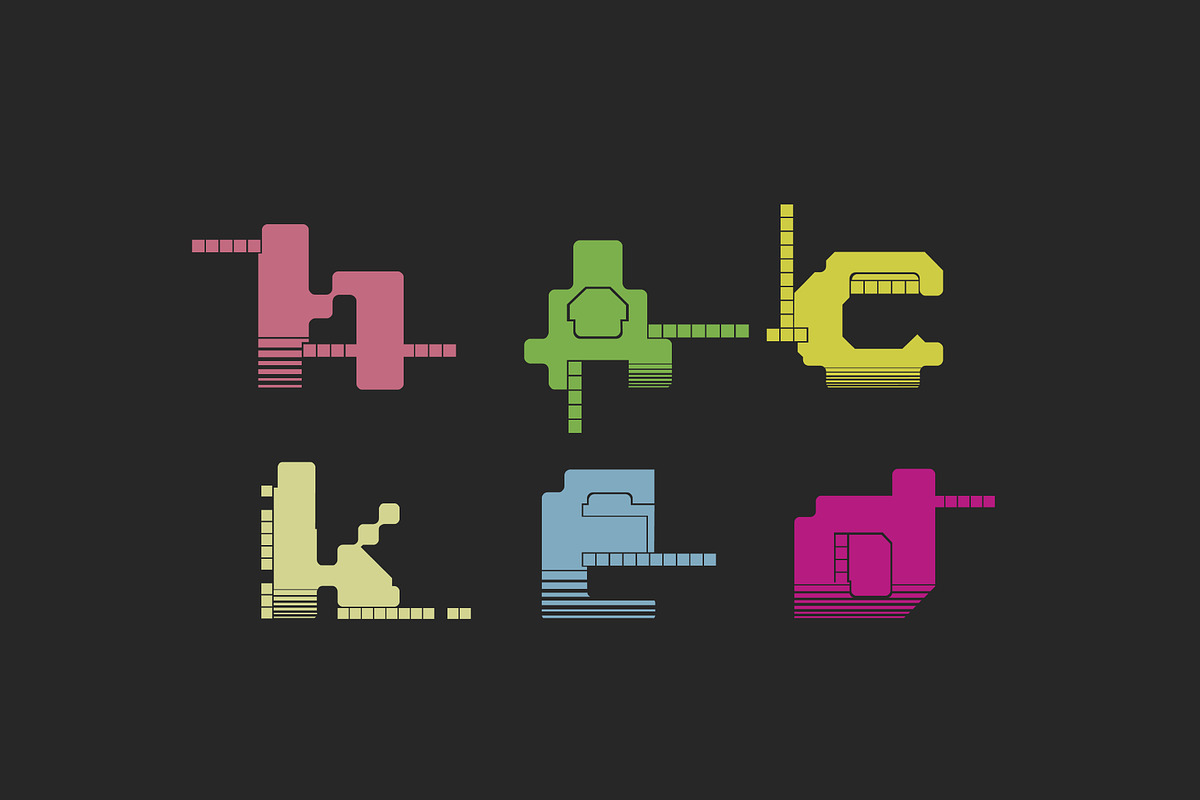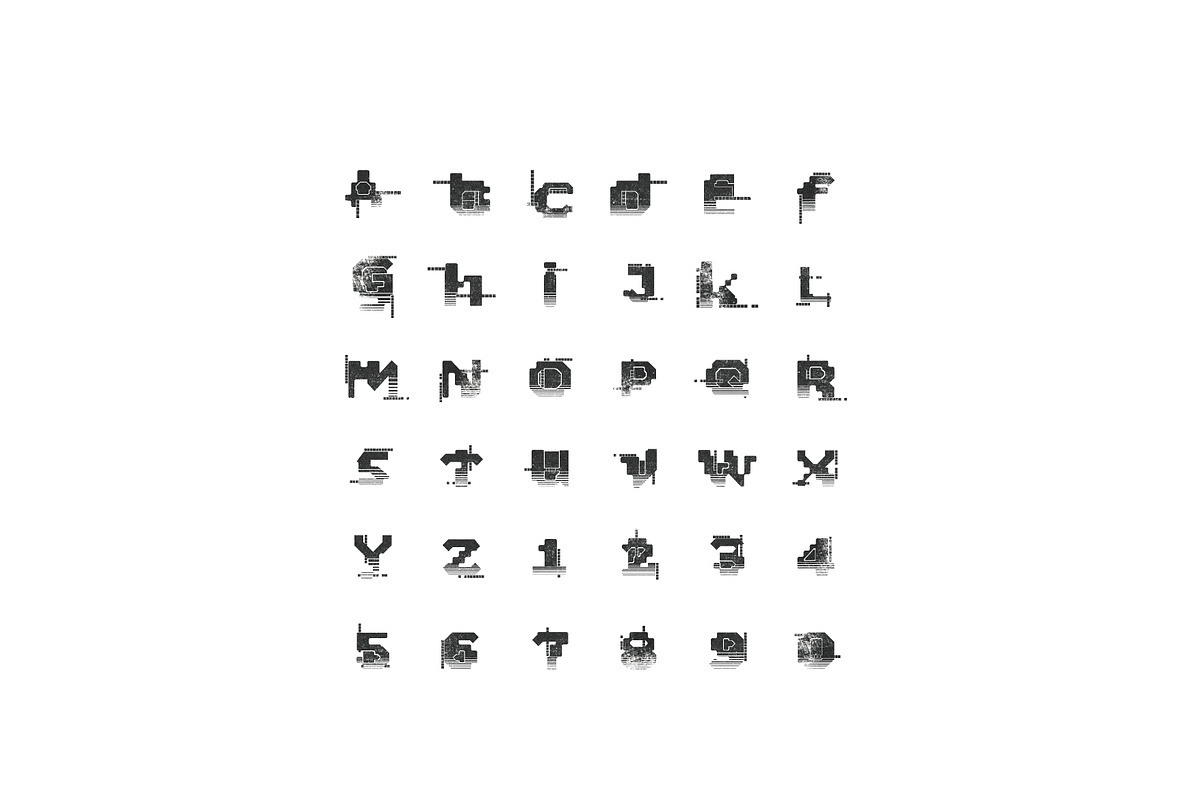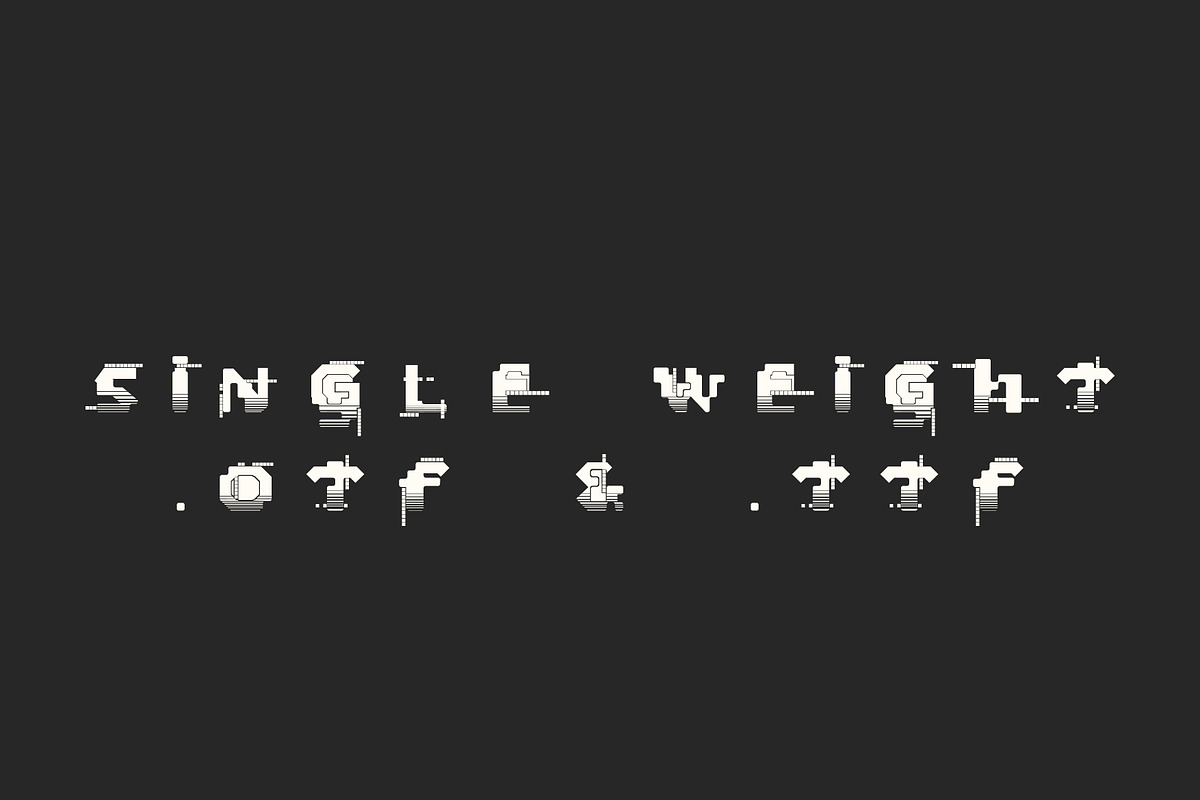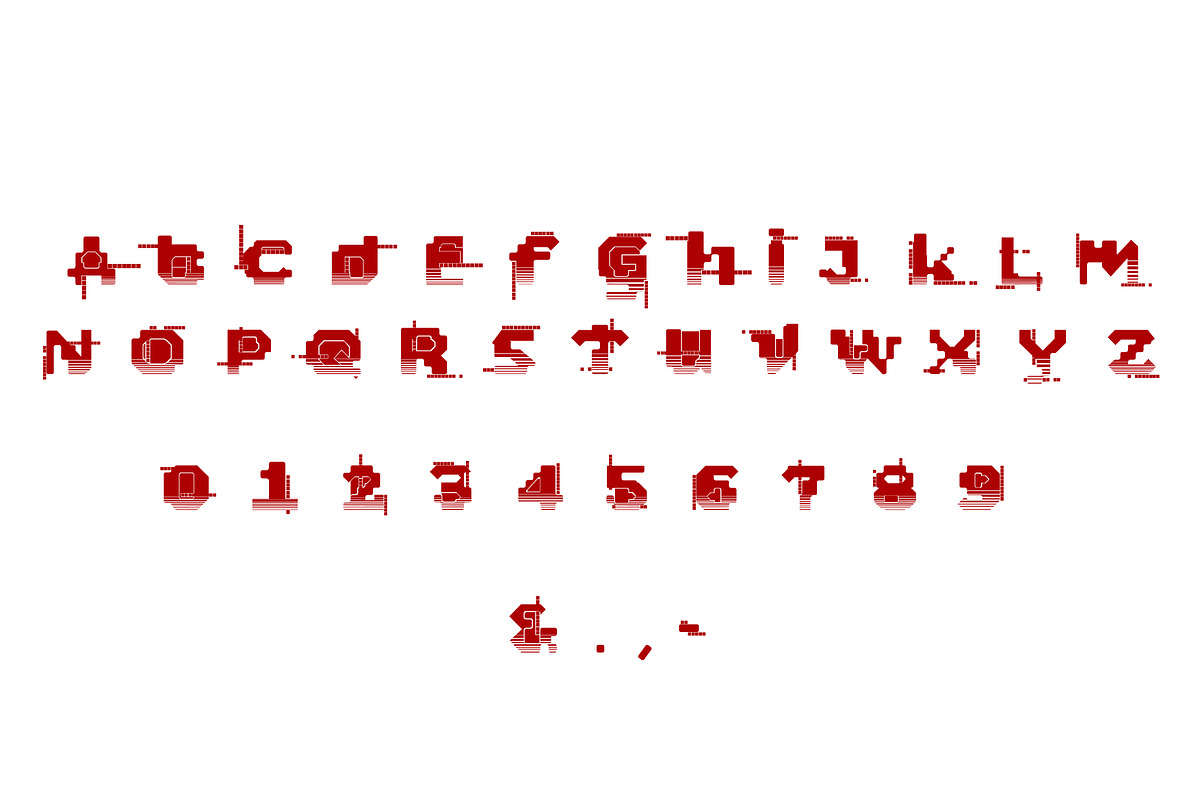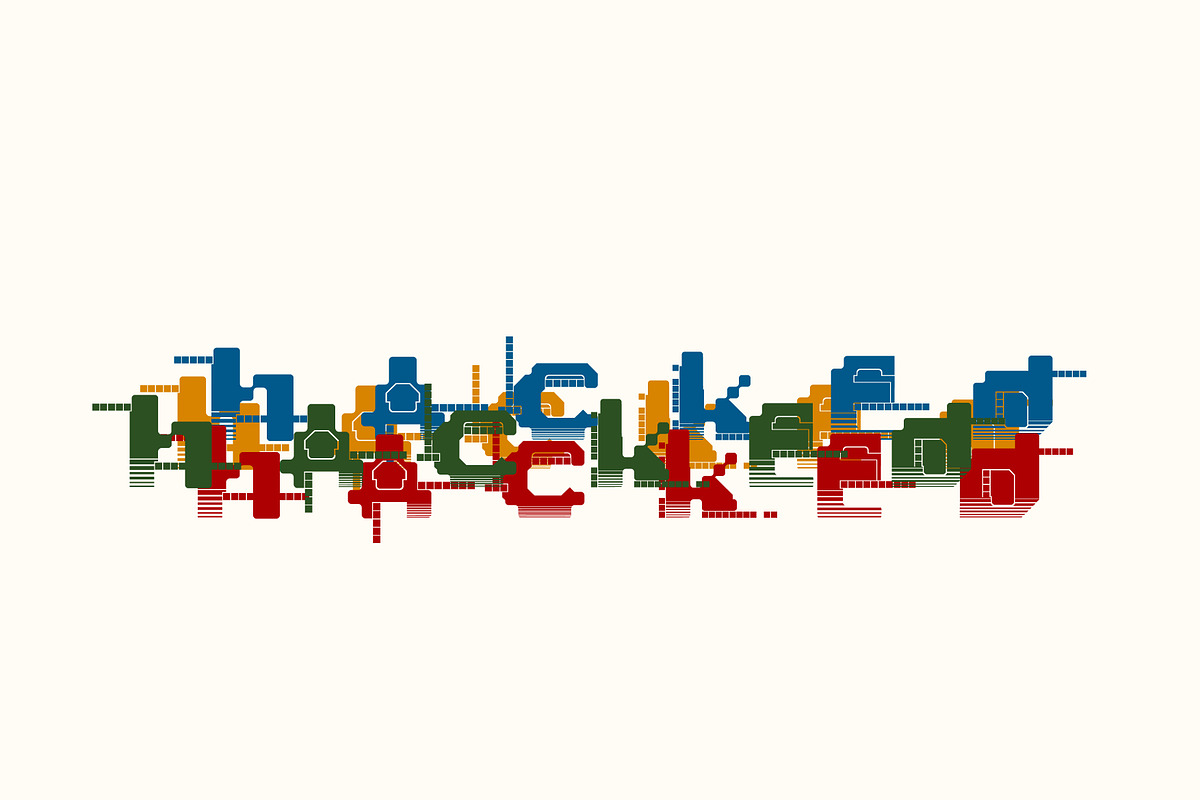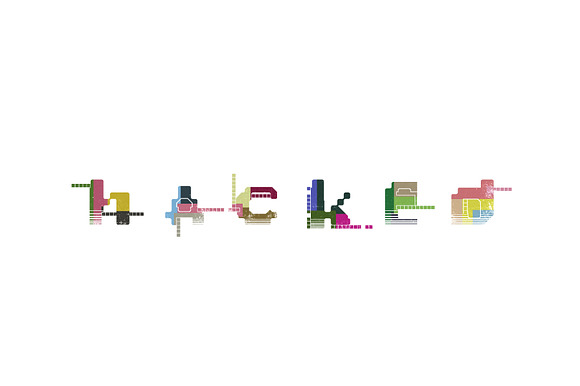
Hacked Font
Hacked Font is a bold, single weight font designed to be used for interesting display purposes.
Hacked Font is a perfect font for posters, publication covers, digital promotion and cover art and so much more!
My goal with this font was to create an interesting, attention grabbing font. The purpose of this font was to create a typeface in the style of computer glitching and the corruption of a number of font files which have fused together to create a Hacked Font.
The font includes a single alphabet with a mixture of upper and lowercase characters, along with numbers, an ampersand symbol and basic punctuation symbols. In the download you will find both .oft and .ttf file types.
The interesting design will be perfect for your next project of the digital or computer theme, or for digital posters or thumbnail images and much more!